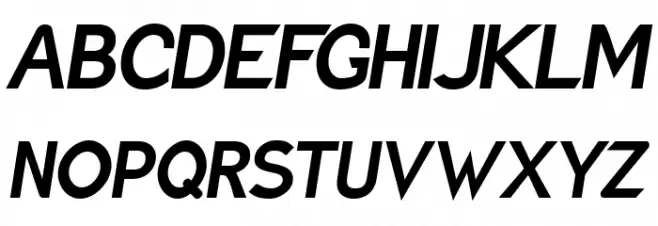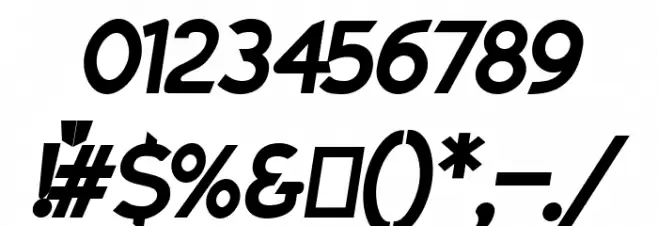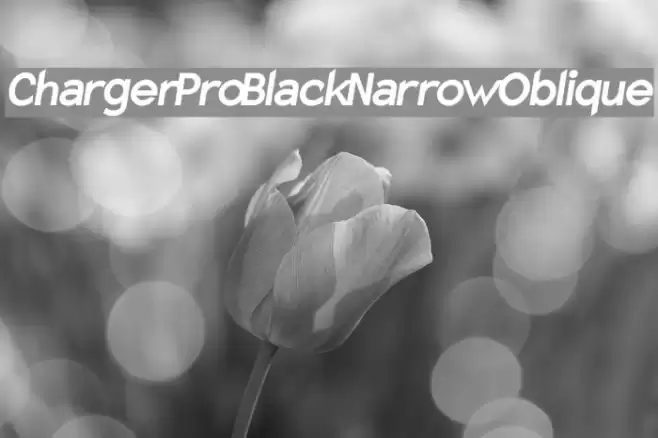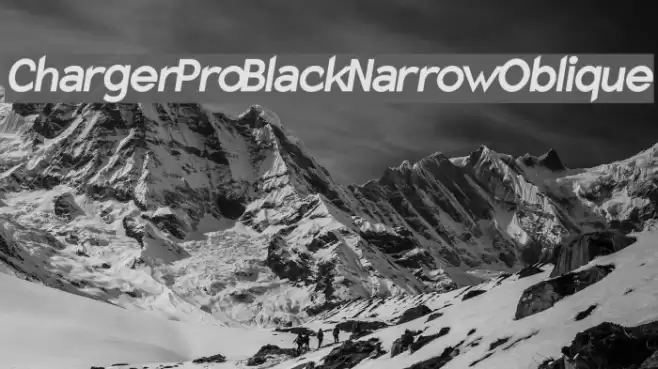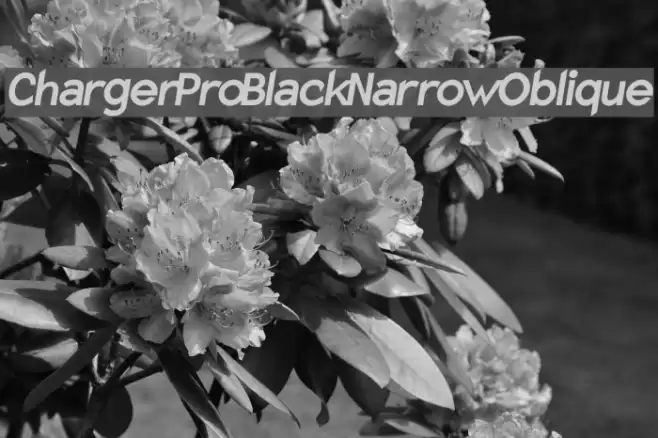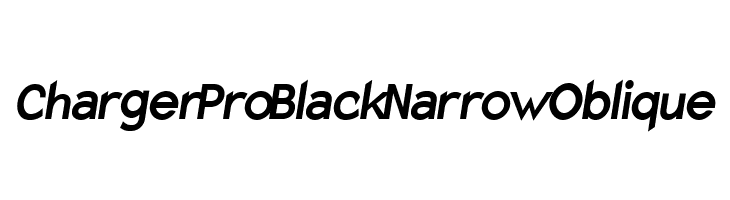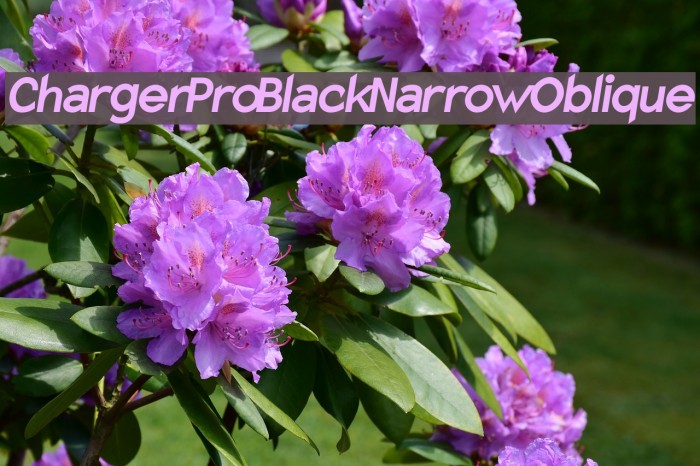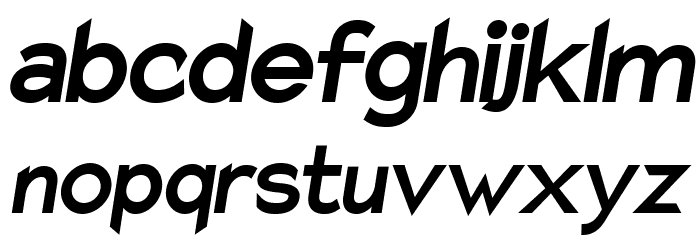
Charger Pro Black Narrow Oblique
This font exhibits a bold and dynamic style with a narrow and oblique orientation, giving it a sense of motion and urgency. The uppercase and lowercase letters are well-defined with a consistent stroke weight, contributing to its bold appearance. The numerals and special characters maintain the same stylistic features, ensuring uniformity across all glyphs. The slanted design adds a modern and edgy feel, making it suitable for attention-grabbing headlines and impactful designs. The character spacing is tight, enhancing the compact and streamlined look of the text.
A bold, narrow, and oblique font with a modern and dynamic style.
- Proposed Projects: Ideal for sports branding, dynamic posters, modern advertising, and impactful headlines.
- Width: Condensed
- Character Spacing: Tight